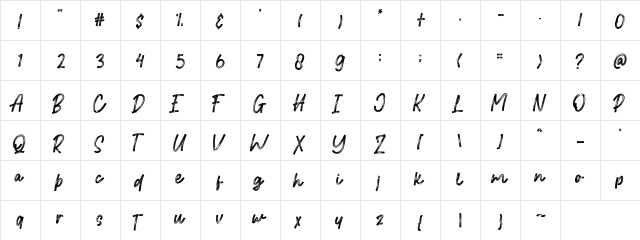
Brittanian ( Demo ) Brush
| Style | Brush |
| Foundry | Crump Hand |
| Designer | Stefie Justprince |
Design Context for Brittanian ( Demo ) Typeface
Brittanian ( Demo ) flows with the natural rhythm of handwritten lettering, making it ideal for designs that call for warmth and personal expression.